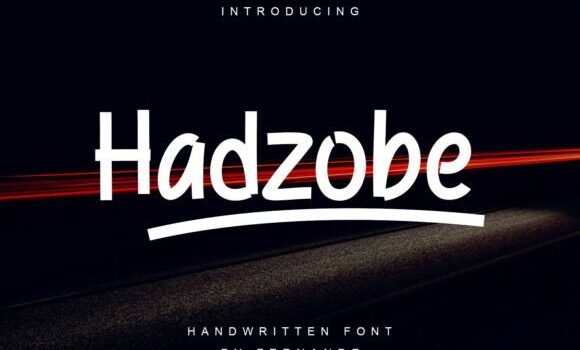
hadzobe
Hadzobe Font – Free Download Introduction to Hadzobe Font Introducing Hadzobe, a handwritten typeface that blends a modern handwritten style with a bold and playful touch. 📸 Preview Gallery 6 images 📌 Product Name Hadzobe Font 👤 Author Fernande Studio